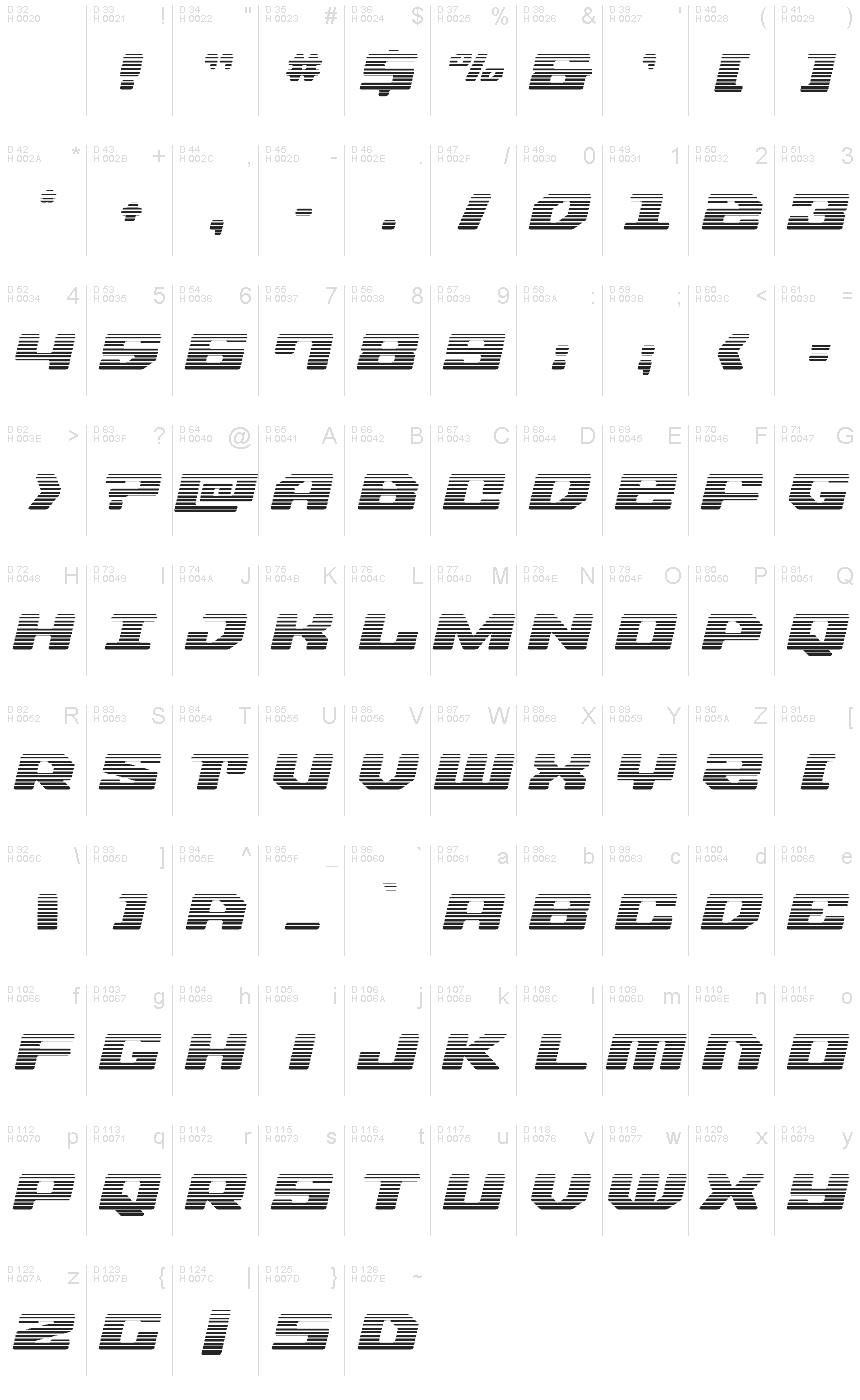
Fawkes Gradient Italic
Fawkes Gradient Italic font by Iconian Fonts surprises the reader with its delightful bold and expanded shape. A display font with a techno and futuristic look, it proves to be exactly what captures the eyes of younger audiences. Its overall appearance is both geometric and angular, which shades away from organic-like designs made of smoothened shapes.
Try this free techno display font in promotional materials where attention must be drawn at a first glance. Think about flyers, posters, banners, book covers, brochures or magazine designs for instance. It’s also great for website landing pages and mobile apps start pages along other user-centered web pages.